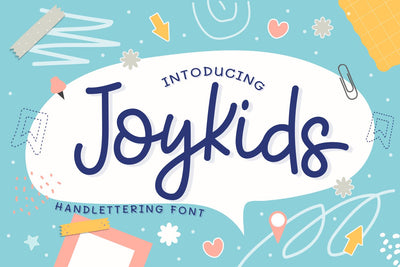
Joykids
Introducing Joykids by Tlatoustype
Joykids is a Modern Handwritten Font. Joykids is perfect for book cover, product packaging, branding project, megazine, social media, wedding, or just used to express words above the background.This font includes TTF and OTF, Joykids also multilingual support.